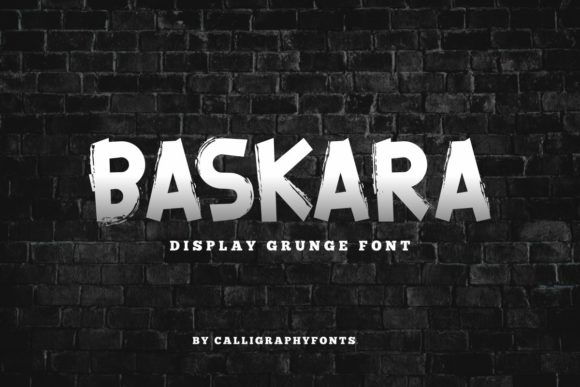
Welcome to the captivating world of Baskara, a display font that exudes boldness and charisma. Baskara's thick, confident strokes command attention, making it the perfect choice for those seeking a font that makes a statement.
As a display font, Baskara thrives in environments where it can shine. Its bold presence adds a touch of drama to product packaging, transforming ordinary boxes into works of art. Branding projects take on a new level of sophistication with Baskara's commanding presence, leaving a lasting impression on your audience.
Fashion forward and visually stunning, Baskara takes social media by storm. Its bold strokes and confident style create eye-catching headlines, captions, and posts that demand attention. Baskara elevates your social media presence, making sure your content stands out from the crowd.
For those planning their big day, Baskara offers a touch of elegance and charm. Wedding invitations, menus, and signage take on a unique personality with Baskara's bold strokes. Its distinct style adds a touch of sophistication to your special day, making it unforgettable.
Baskara is more than just a font; it's a versatile tool that empowers you to express your creativity. Its bold strokes and commanding presence are perfect for adding depth and dimension to any design project. Let Baskara be your font of choice when you want to make a statement and leave a lasting impression.